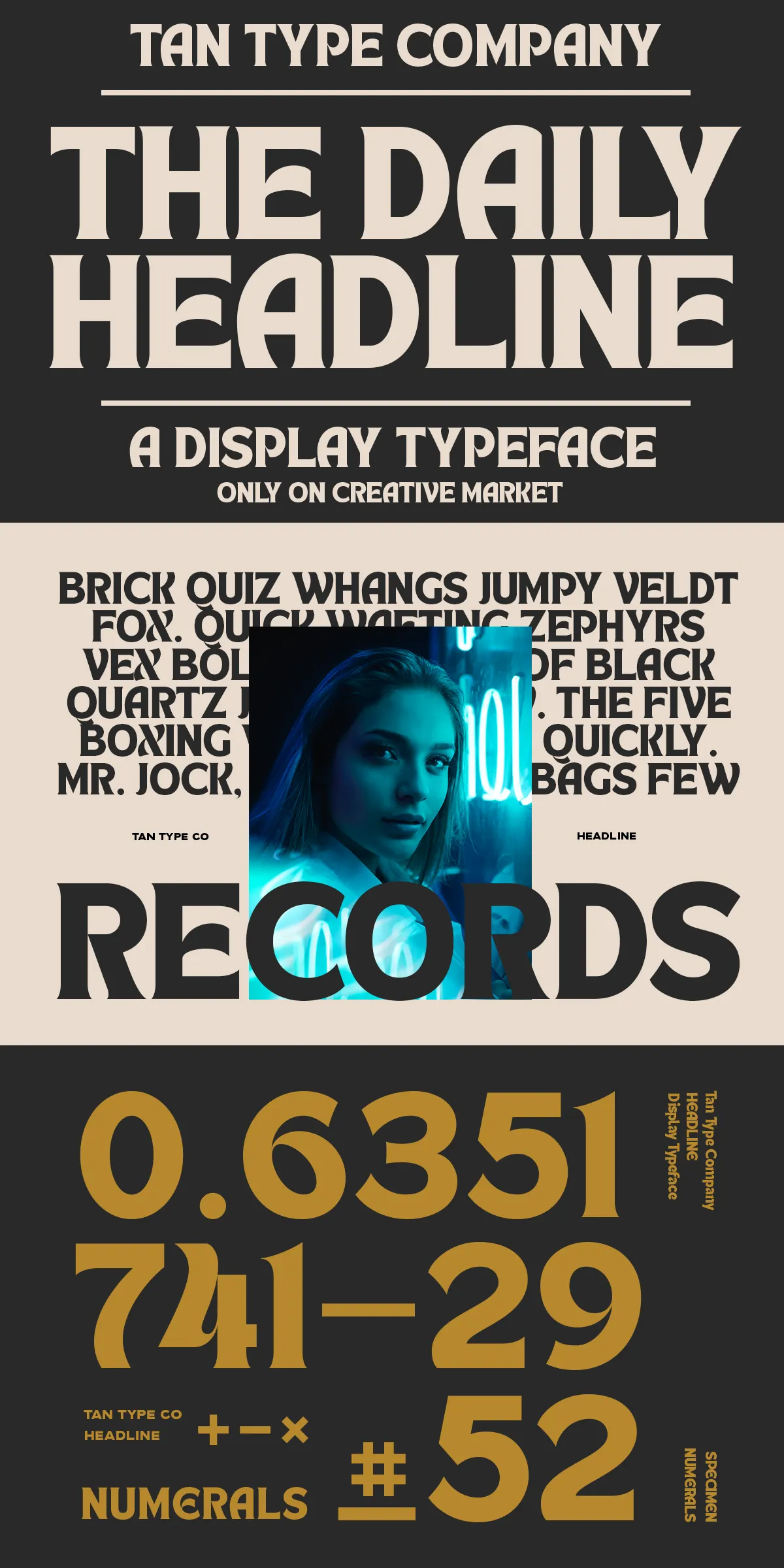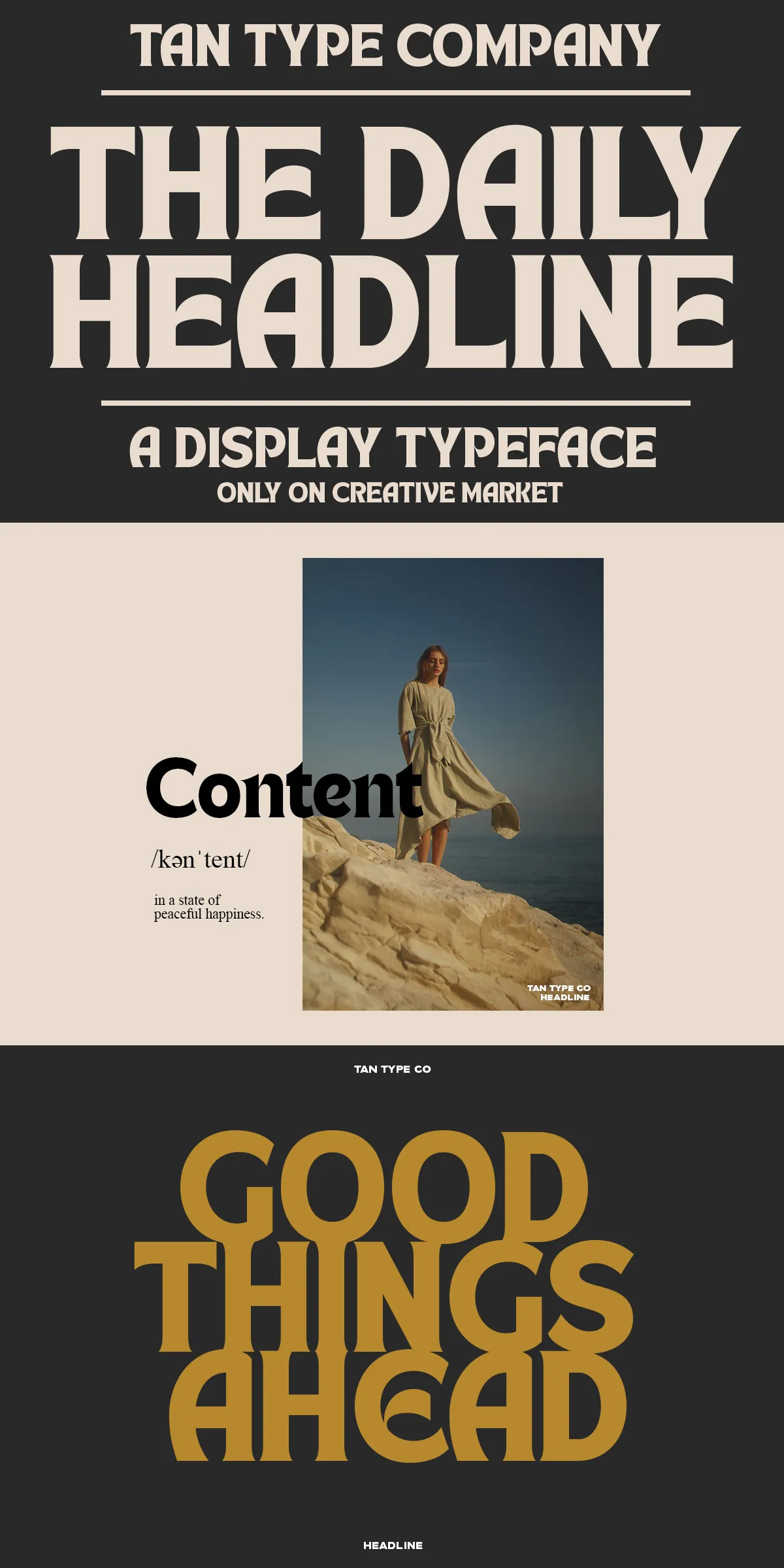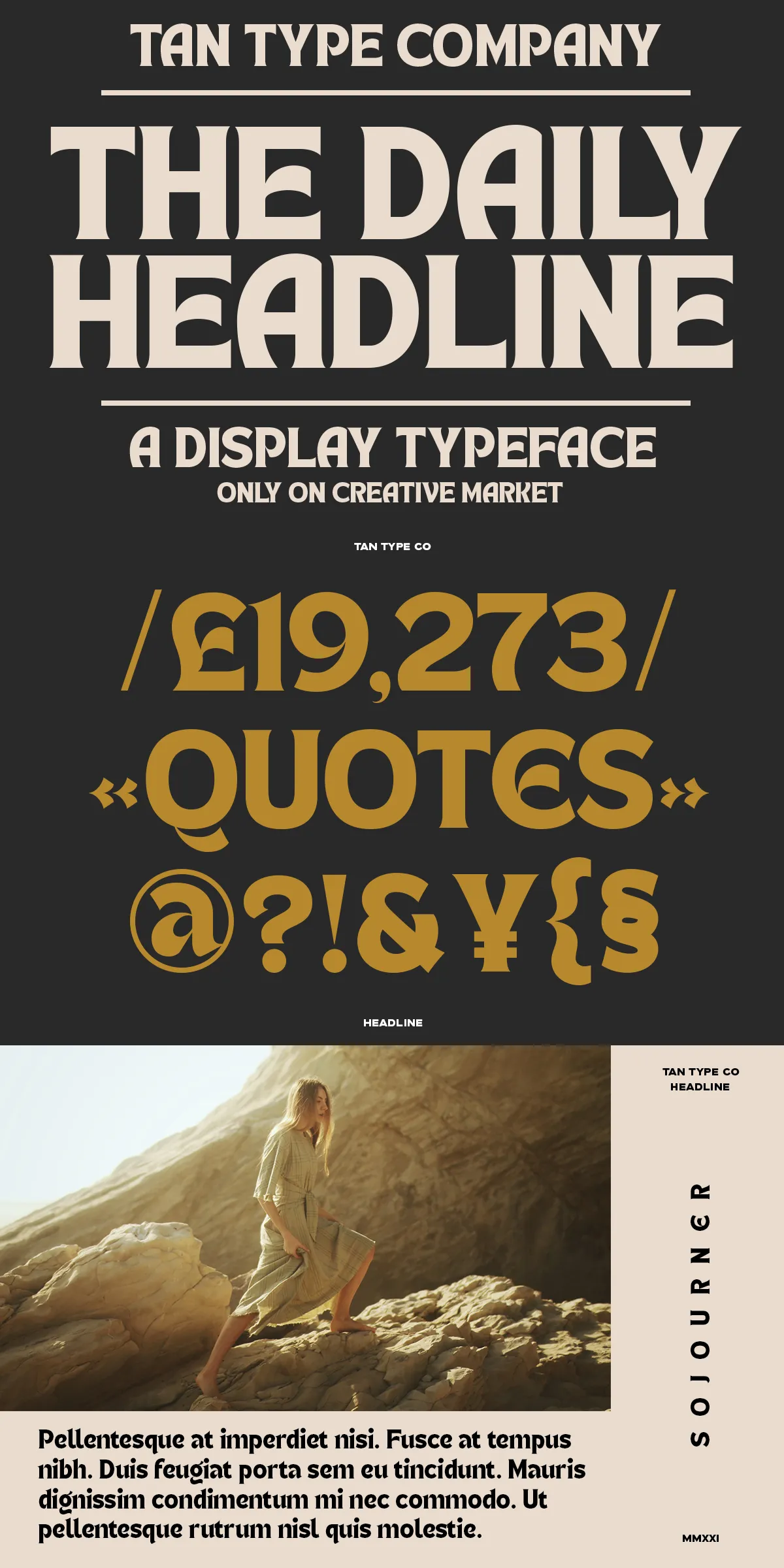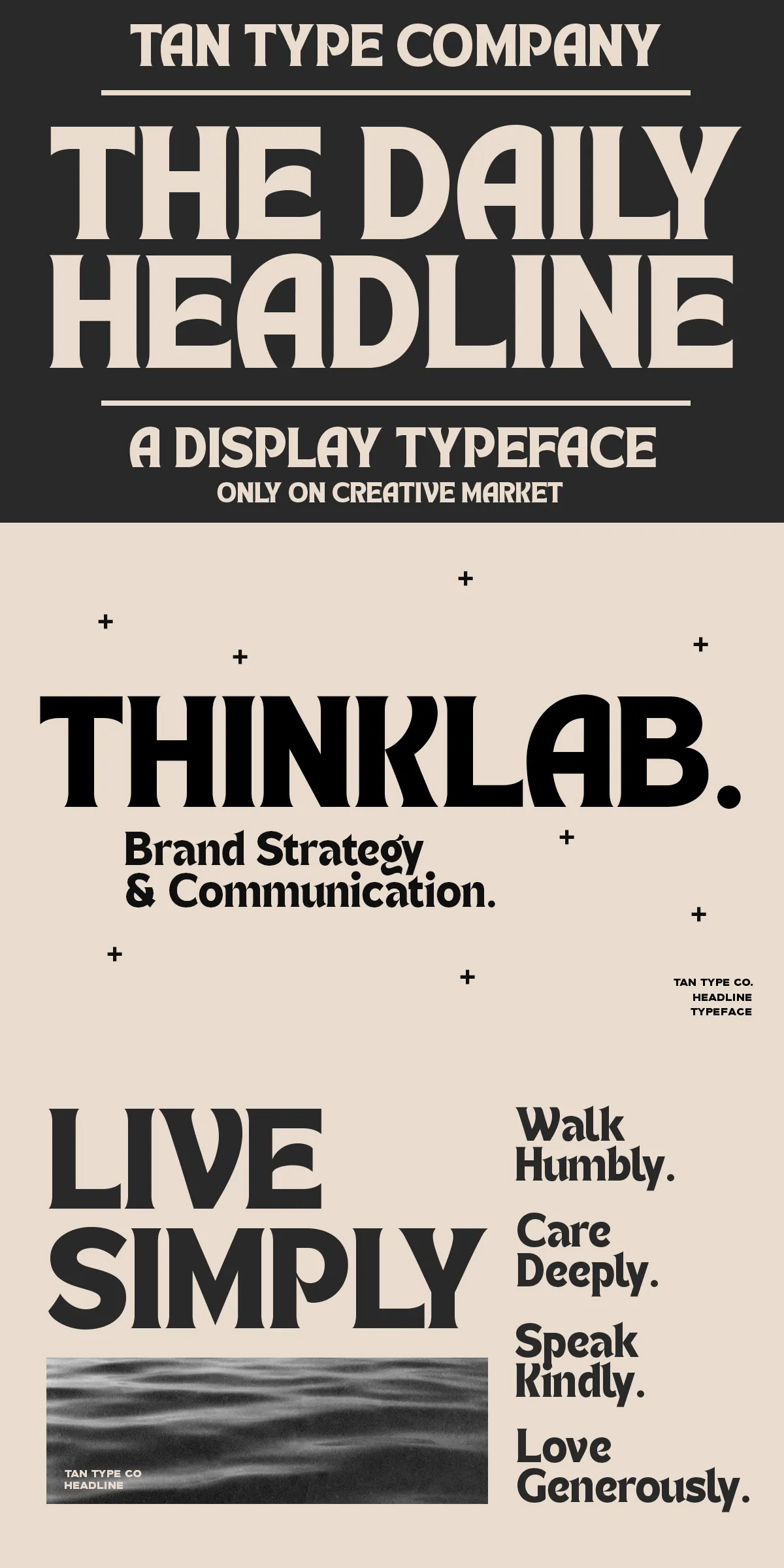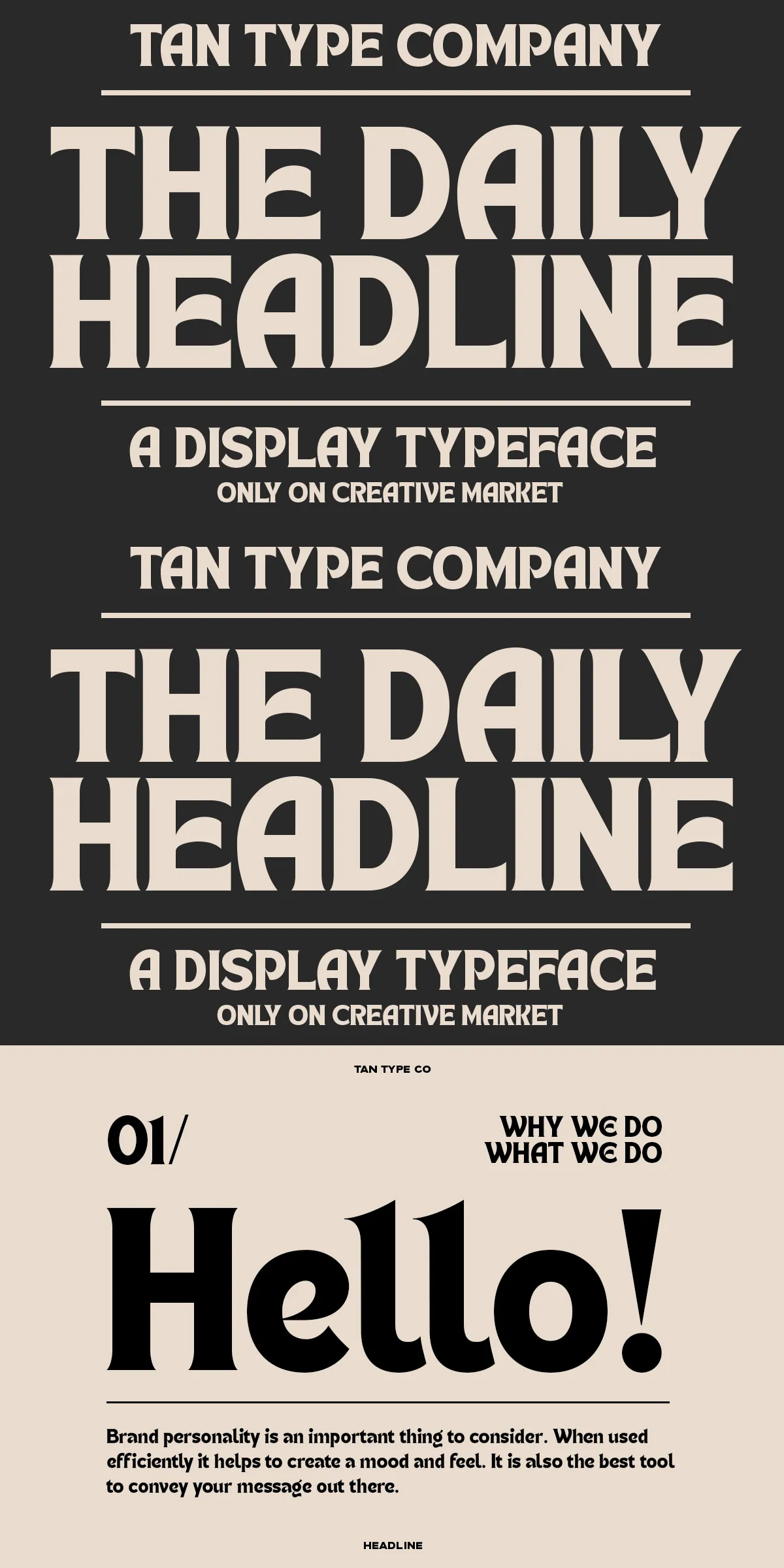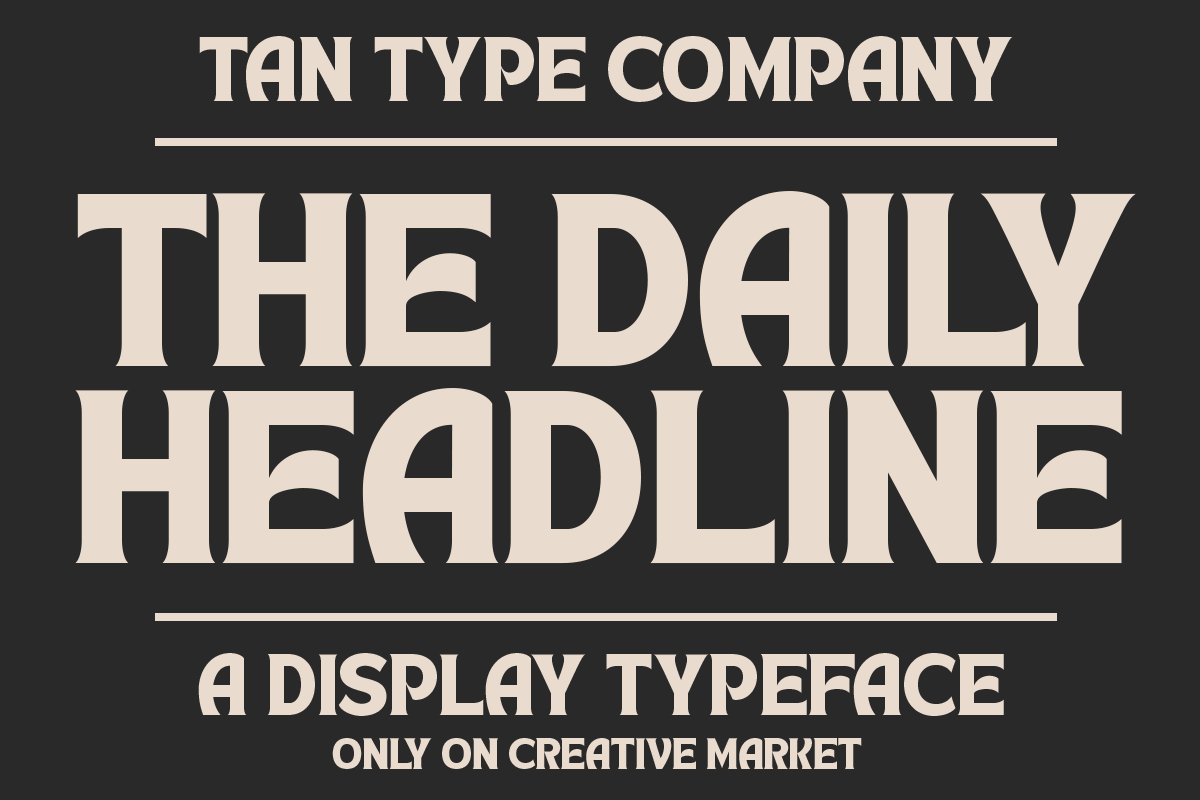
TAN – HEADLINE
Turn heads and define your visual identity with TAN – HEADLINE, a bold, retro-inspired display serif font designed for maximum impact. Though it appears deceptively simple at first glance, this typeface reveals a world of intricate charm the more you examine it. With its clean lines and classic serif structure, TAN – HEADLINE delivers immediate readability and timeless elegance—while subtle, intentional twists in letterforms add visual intrigue and distinguish it from ordinary designs.
Where Minimalism Meets Retro Character
Designed for creatives who appreciate understated sophistication, TAN – HEADLINE brings the nostalgic energy of the 1980s and 1990s forward with a modern, refined touch. It’s not about loudness or noise—it’s about presence. The font’s clean geometry provides a solid foundation, while carefully crafted details in serifs, strokes, and spacing breathe life into each character. This balance makes it ideal for projects that demand both clarity and personality.
Key Features That Define Its Appeal
• Retrouvaille Aesthetic: Rooted in retro typographic traditions, TAN – HEADLINE captures the spirit of vintage display fonts with modern precision and clean lines.
• Subtle Visual Twists: Small but intentional deviations in stems, terminals, and stroke contrast create visual interest without overwhelming the design.
• High-Contrast Legibility: Designed for maximum readability at large sizes, perfect for headlines, posters, signage, and titles.
• Extensive Character Set: Supports standard Latin letters, numerals, punctuation, and a wide array of special symbols for real-world usability.
• Multilingual Support: Includes extended character sets to accommodate multiple languages, making it suitable for global projects and inclusive design.
Engineered for Creative Excellence
TAN – HEADLINE isn’t just a font—it’s a creative tool. Its balanced proportions and thoughtful design allow it to function in a wide range of applications from dynamic branding to editorial layouts. Whether you’re crafting a retro-themed flyer, designing a music festival poster, building a product’s headline in a UI, or creating a minimalist yet compelling logo, this font delivers reliable, high-impact results.
Perfect for These Applications:
• Branding & Logo Design: Build memorable identities with a font that speaks confidently and uniquely.
• Editorial & Print Design: Elevate newsstand covers, magazine titles, and feature articles with a distinctive yet clean look.
• Marketing Campaigns: Create bold call-to-action text and attention-grabbing headlines that stand out across all media.
• Web & UI Headlines: Implement in hero sections, navigation tabs, and section headers with crisp rendering across devices.
• Event & Poster Design: Perfect for concerts, art shows, and cultural events needing that retro, polished finish.
Elevate Your Work with a Font That Speaks with Purpose
TAN – HEADLINE combines elegance, history, and modernity into a single, powerful typeface. It’s the ideal choice for designers who want to stand out—not with loudness, but with intelligence, balance, and quiet confidence.